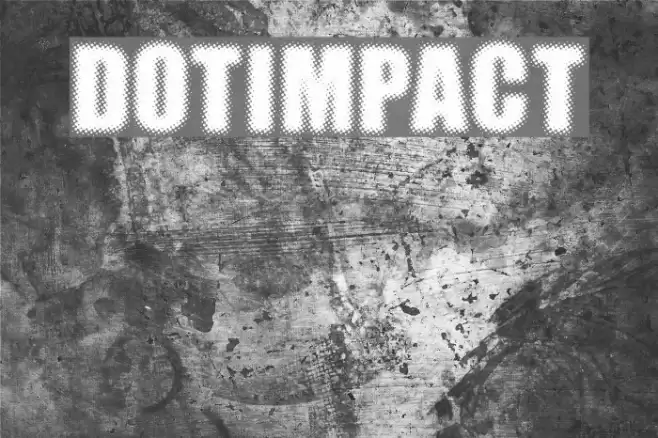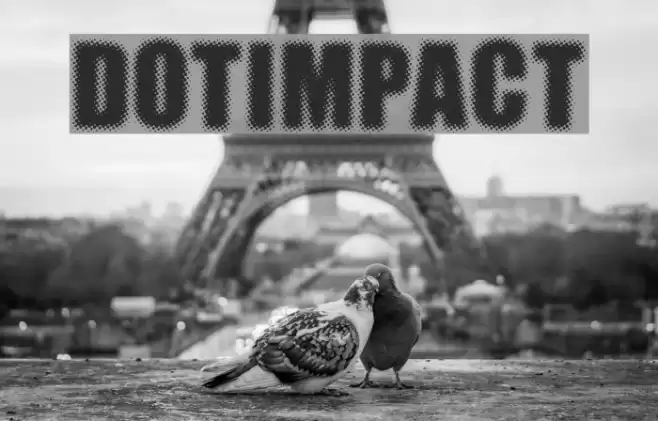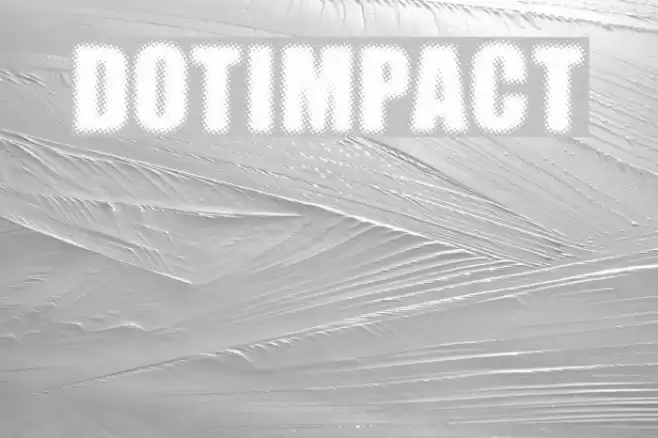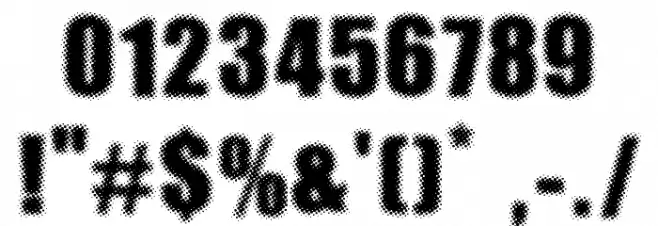
DOTIMPACT Font
DOTIMPACT Description
This font features a bold, impactful style with a dotted texture that gives it a unique, eye-catching appearance. The uppercase letters are strong and prominent, making them ideal for attention-grabbing headlines or titles. The numbers and special characters maintain the same boldness and dotted texture, ensuring consistency across all characters. The font's distinct style is both modern and playful, suitable for creative projects that require a standout typeface.
A bold, dotted font ideal for impactful and creative designs from Distorted Eroded fonts.